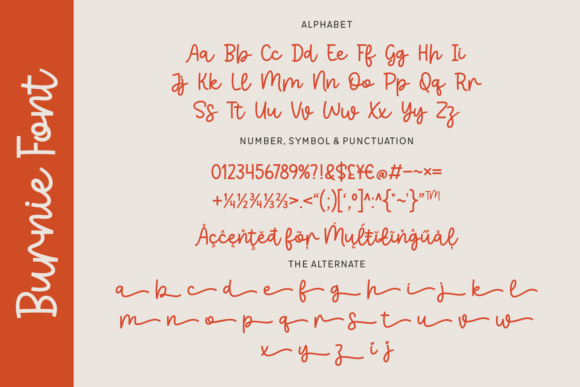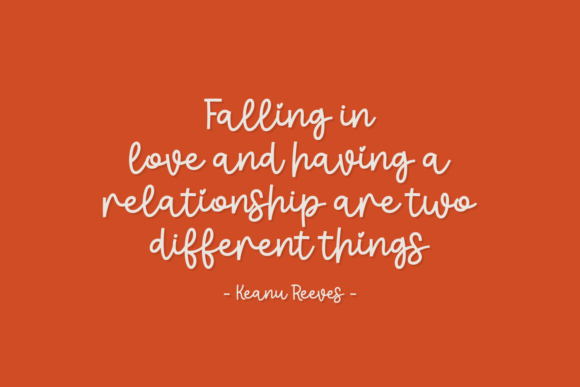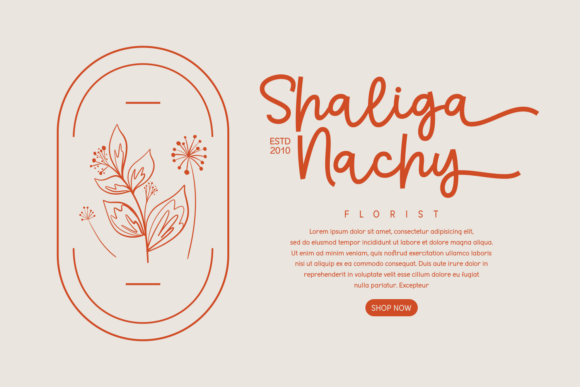
The Perfect Blend of Simplicity and Elegance
As a designer, you’ve probably found yourself staring at a blank canvas, trying to come up with the perfect font to convey the essence of your brand. You’ve scoured through countless options, but nothing seems to quite capture the essence you’re looking for. That’s where Burnie Font comes in – a charming and minimalistic monoline script font designed to bring a touch of warmth and personality to your designs.
With its clean, flowing lines and playful heart detail, Burnie Font is the perfect addition to any logo, wedding invitation, or creative branding project. Its versatility makes it suitable for both casual and professional uses, giving you the flexibility to create a wide range of designs that exude a friendly and approachable vibe. Whether you’re a seasoned designer or just starting out, Burnie Font is an invaluable asset that’s sure to elevate your projects to the next level.
Burnie Font Key Features
- Font Style: Casual, Cursive, Script
- Font Size: 1,000 glyphs, 20,000+ characters
- Unique Characteristics: Includes a wide range of emoticon and emoji characters, making it ideal for digital communication and social media
Burnie Font Review
I recently had the chance to work with the Burnie Font, and I have to say it’s an interesting typeface. There are definitely some ✨ highlights, but also some ⚠️ limitations to consider.
- ✨ The Burnie Font has a unique, hand-drawn feel that can add a lot of character to your designs.
- ✨ The font is highly customizable, with a wide range of weights and styles to choose from.
- ✨ Burnie is a great choice for creative projects, such as logos, packaging, and advertising.
However, there are some ⚠️ limitations to be aware of:
- ⚠️ The font may not be suitable for body text, as it can be quite difficult to read at smaller sizes.
- ⚠️ The hand-drawn feel can sometimes make the font look a bit inconsistent or uneven.
Overall, I’d say the Burnie Font is a solid choice for designers who want to add a bit of personality to their projects. Just be sure to use it in the right context and take advantage of its customization options.
The Burnie Font is ideal for:
– Creating playful and fun designs.
– Adding a unique touch to logos, graphics, and illustrations.